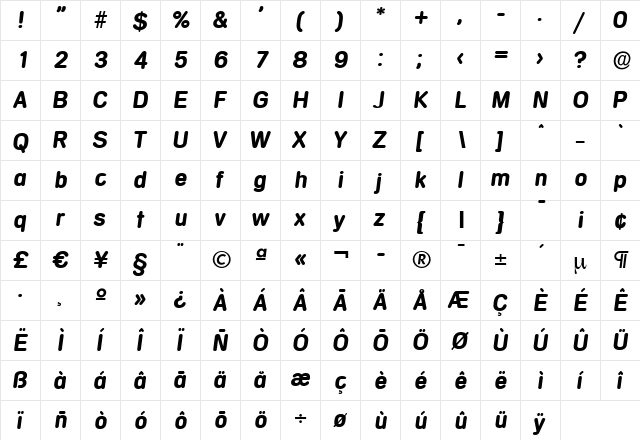
AndreasBecker Bold Italic
Design Context for AndreasBecker Typeface
AndreasBecker takes a measured approach to typography — its balanced proportions and neutral character make it a reliable workhorse for both digital and print work. The slanted form adds forward momentum and visual energy. Its bold stroke weight gives it real presence on the page.
Pro Tip: Use AndreasBecker for emphasis, pull quotes, and subheadings where its slanted energy can add rhythm to the layout.